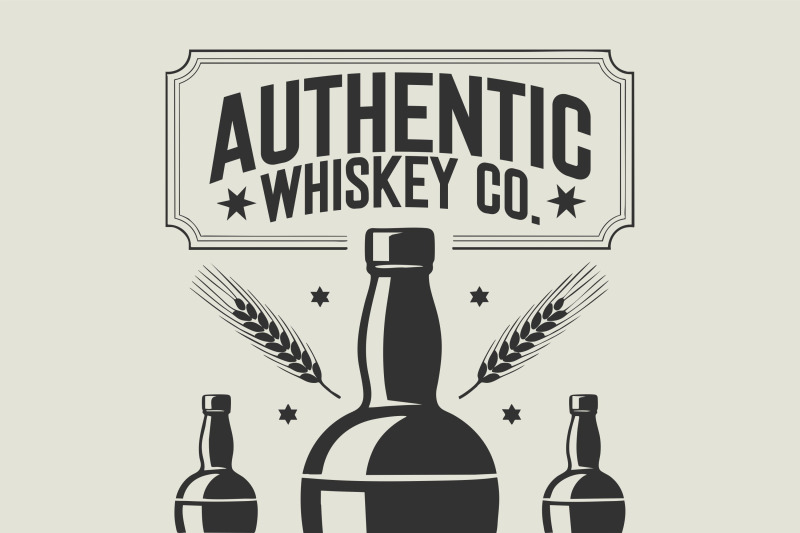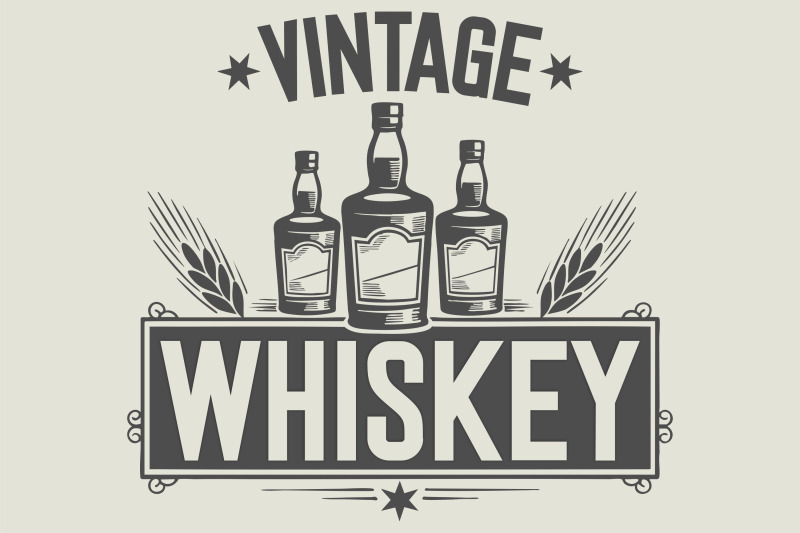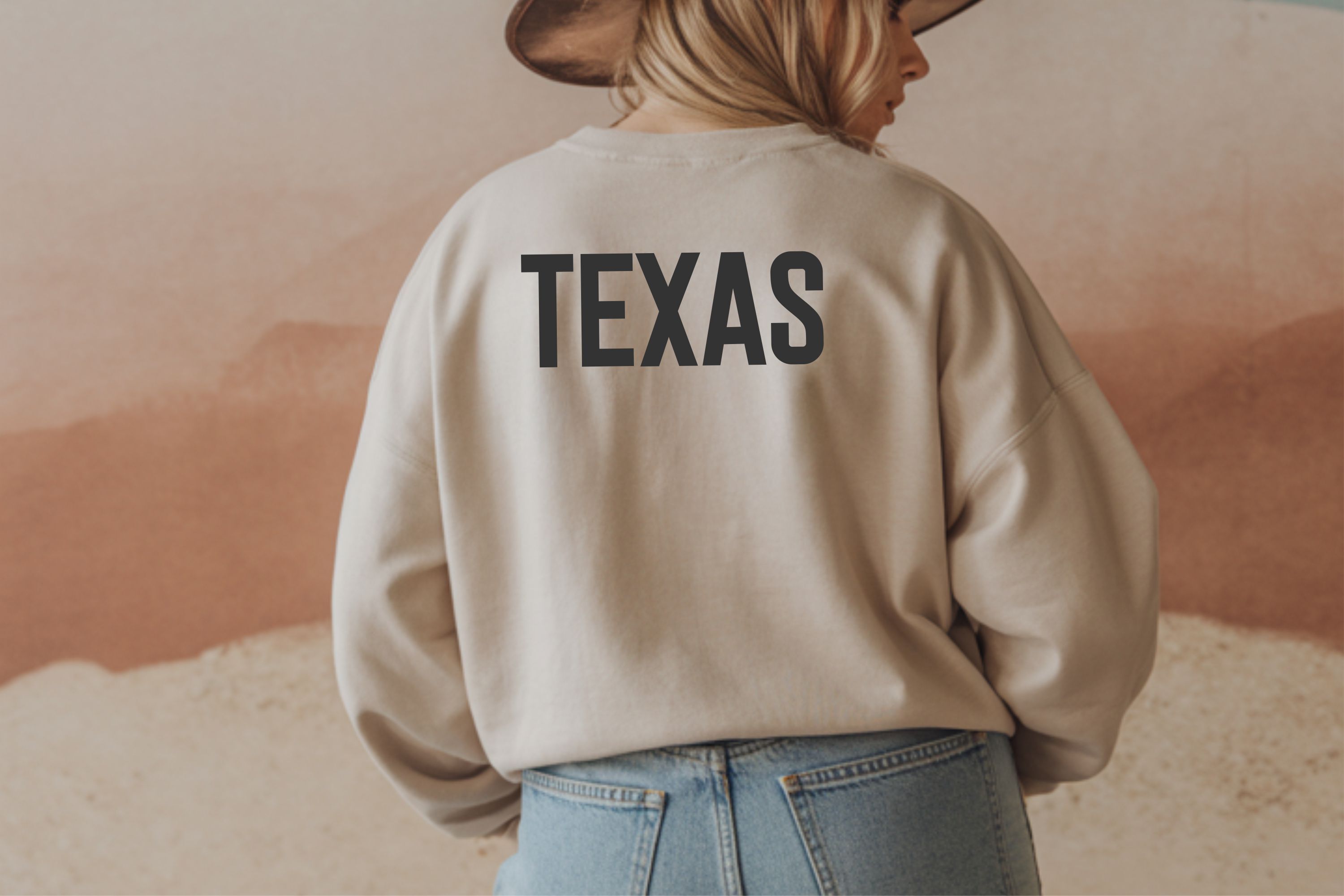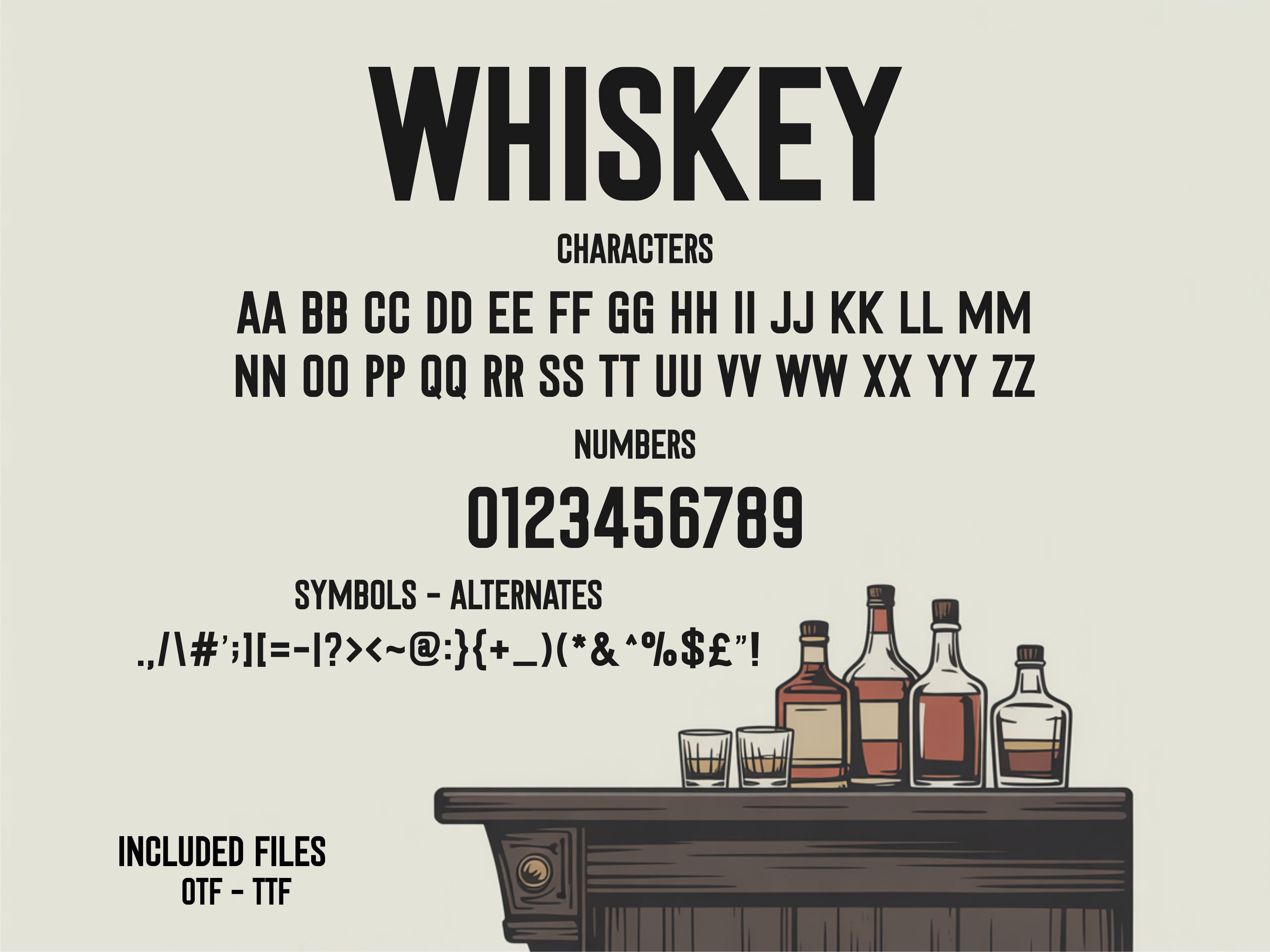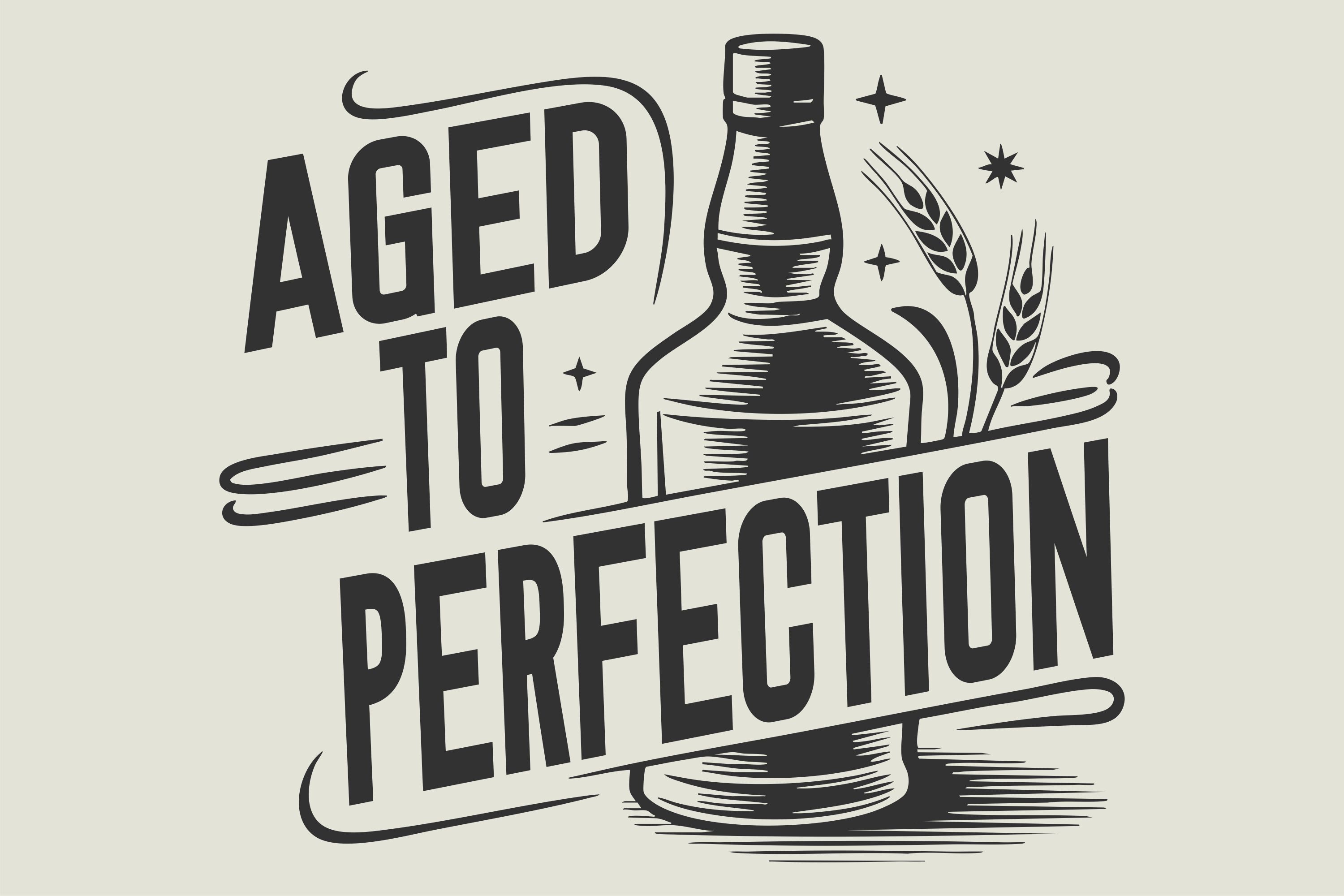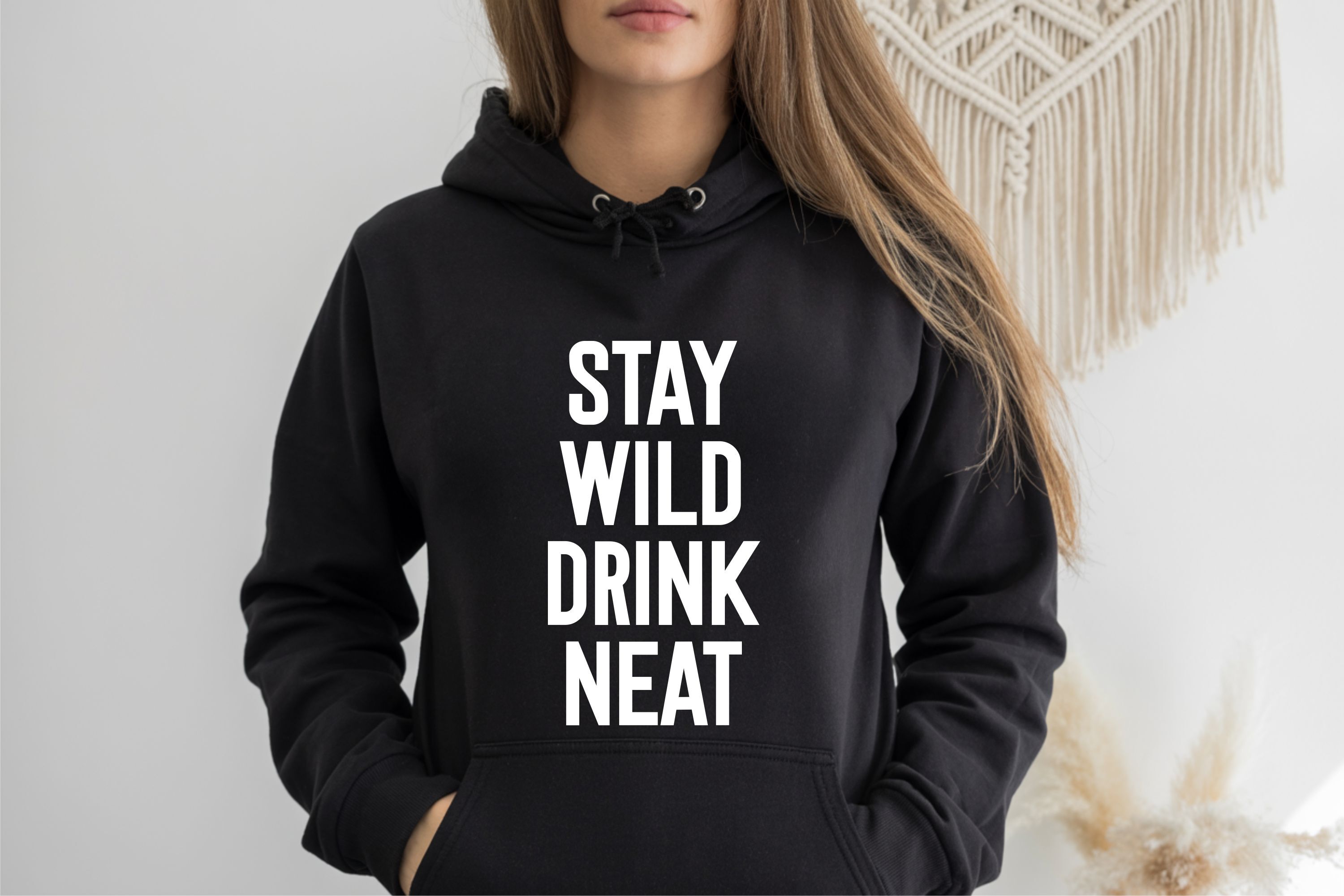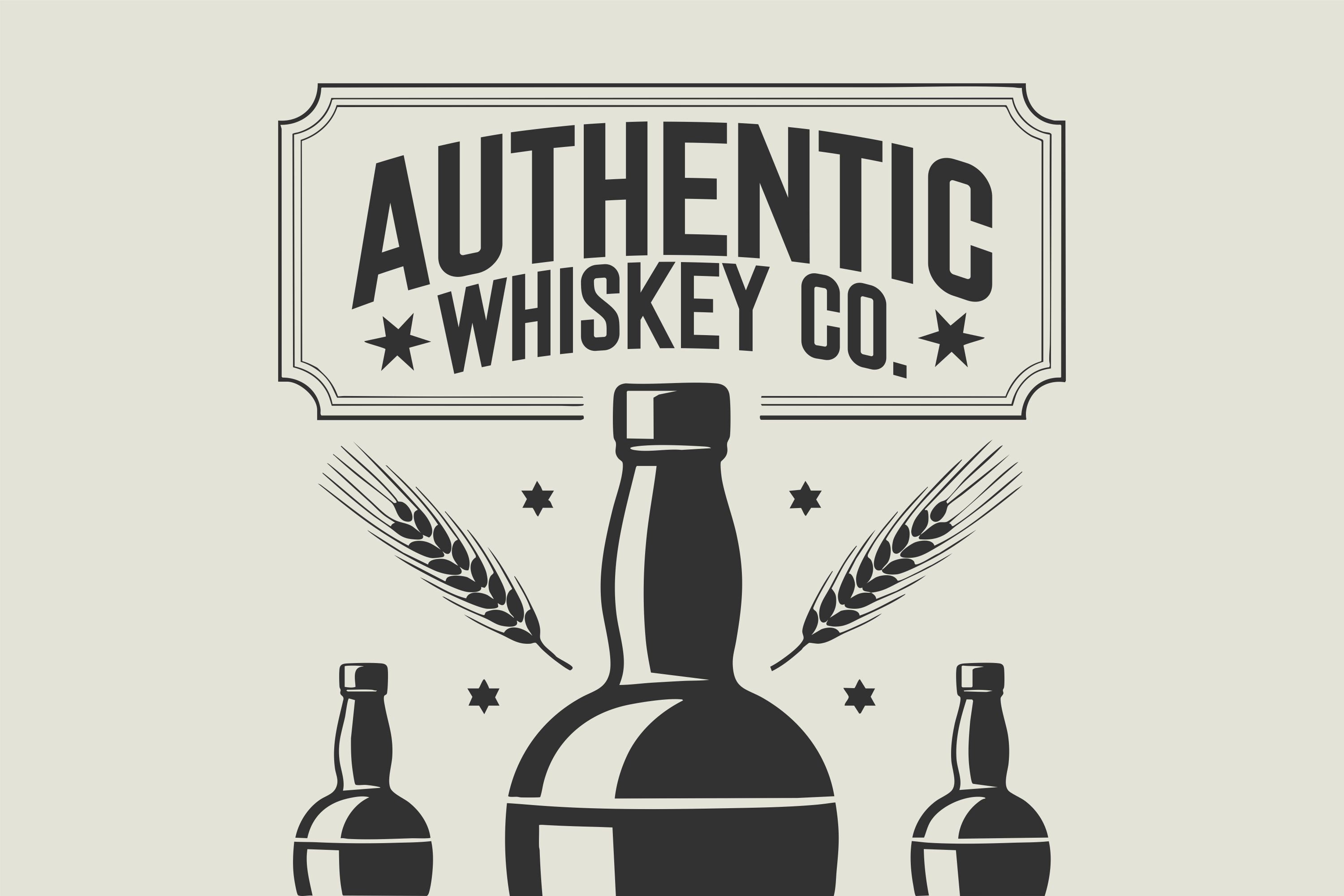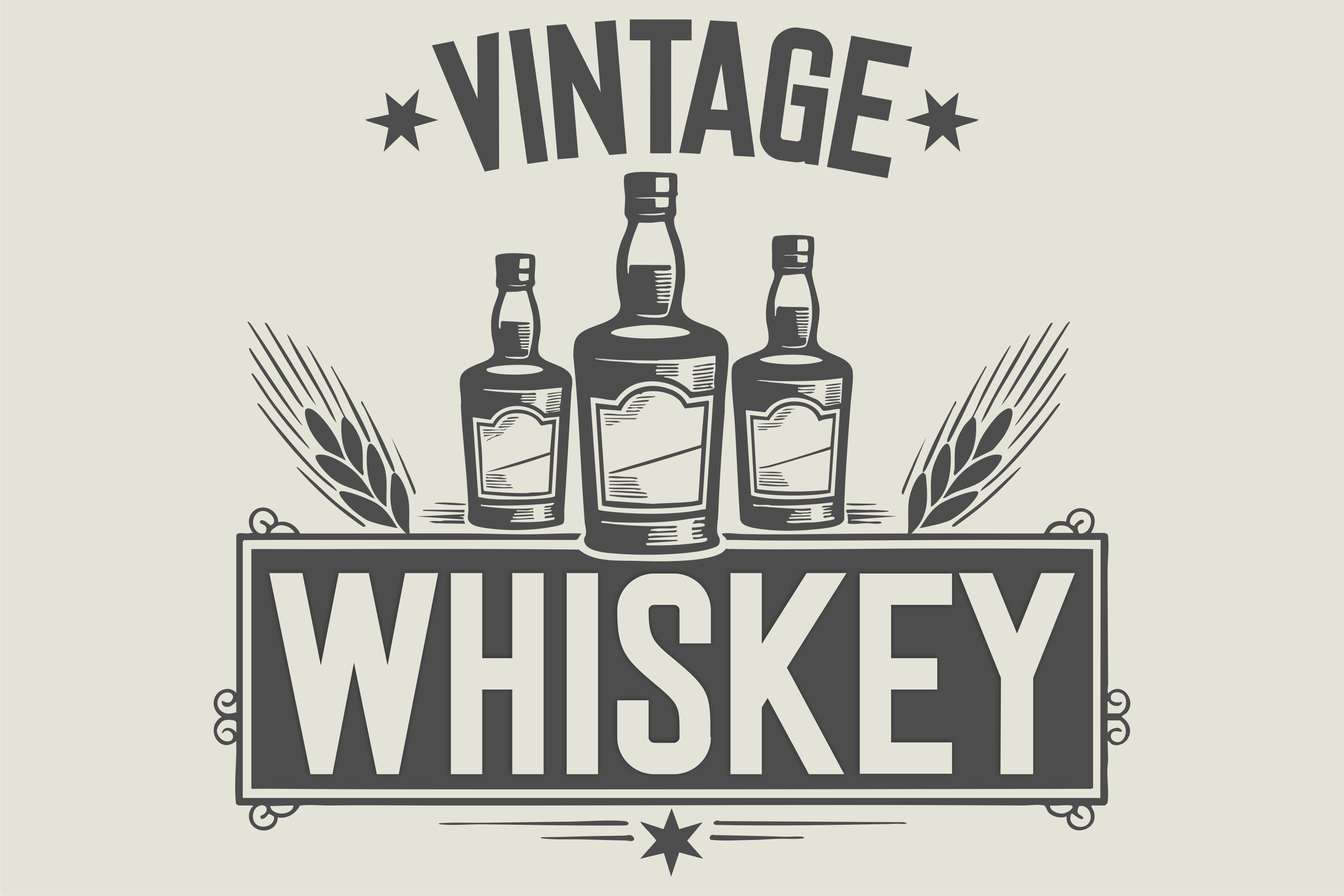
Whiskey Font | Vintage Font | Bold Sans Serif Display Font
Introducing Vintage Whiskey Font — a bold sans serif typeface crafted with timeless charm and vintage spirit. Inspired by classic whiskey labels, saloon signs, and traditional distillery lettering, this font combines strength, clarity, and rustic authenticity. With clean lines, tall condensed characters, and a handcrafted feel, Vintage Whiskey is perfect for logos, posters, apparel, packaging, bar signage, and retro branding projects. Each letter embodies the essence of heritage and craftsmanship, giving your designs that old-fashioned boldness that never fades. This font includes uppercase letters, numbers, punctuation, and multilingual support, designed for versatility in both print and digital use. Whether you’re creating a label for your craft brand, a western-themed project, or a vintage T-shirt design, Vintage Whiskey brings authentic style and strong visual impact to every creation.